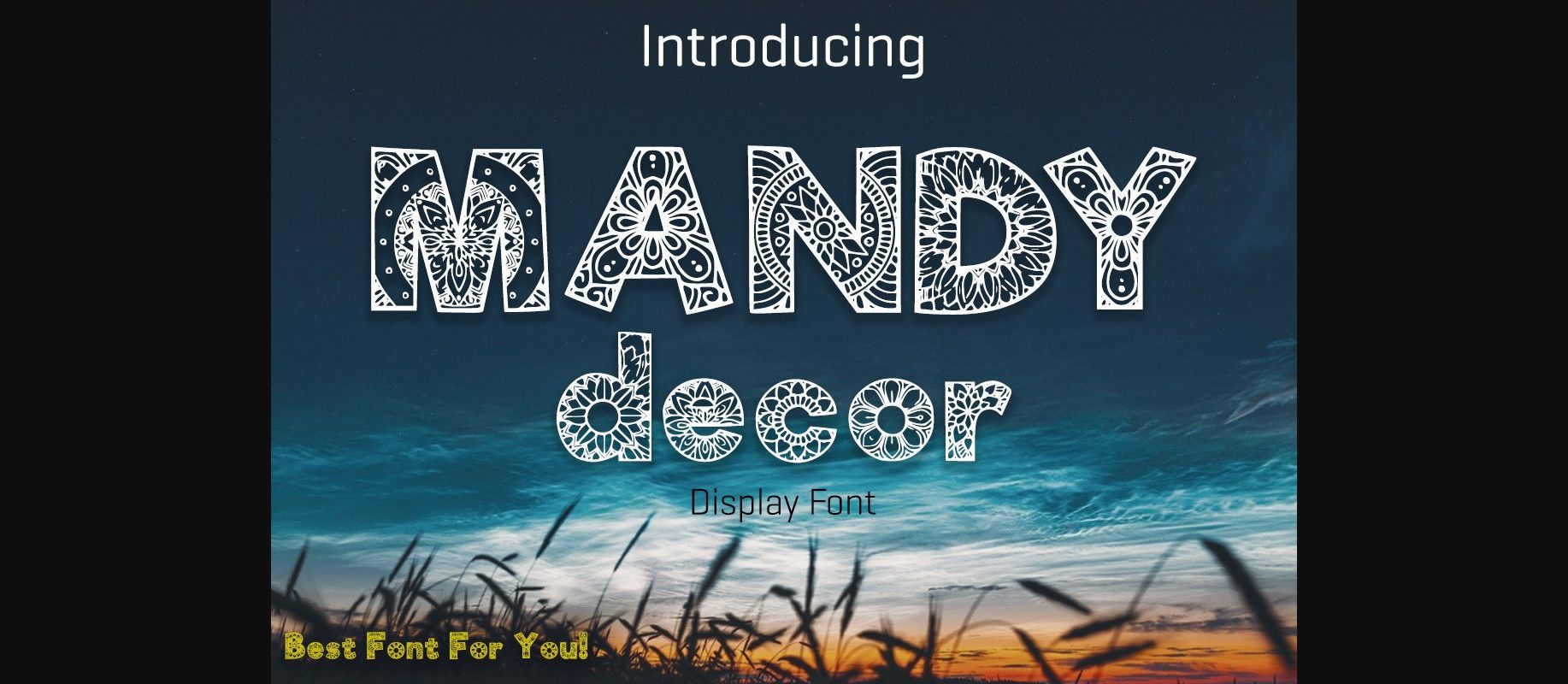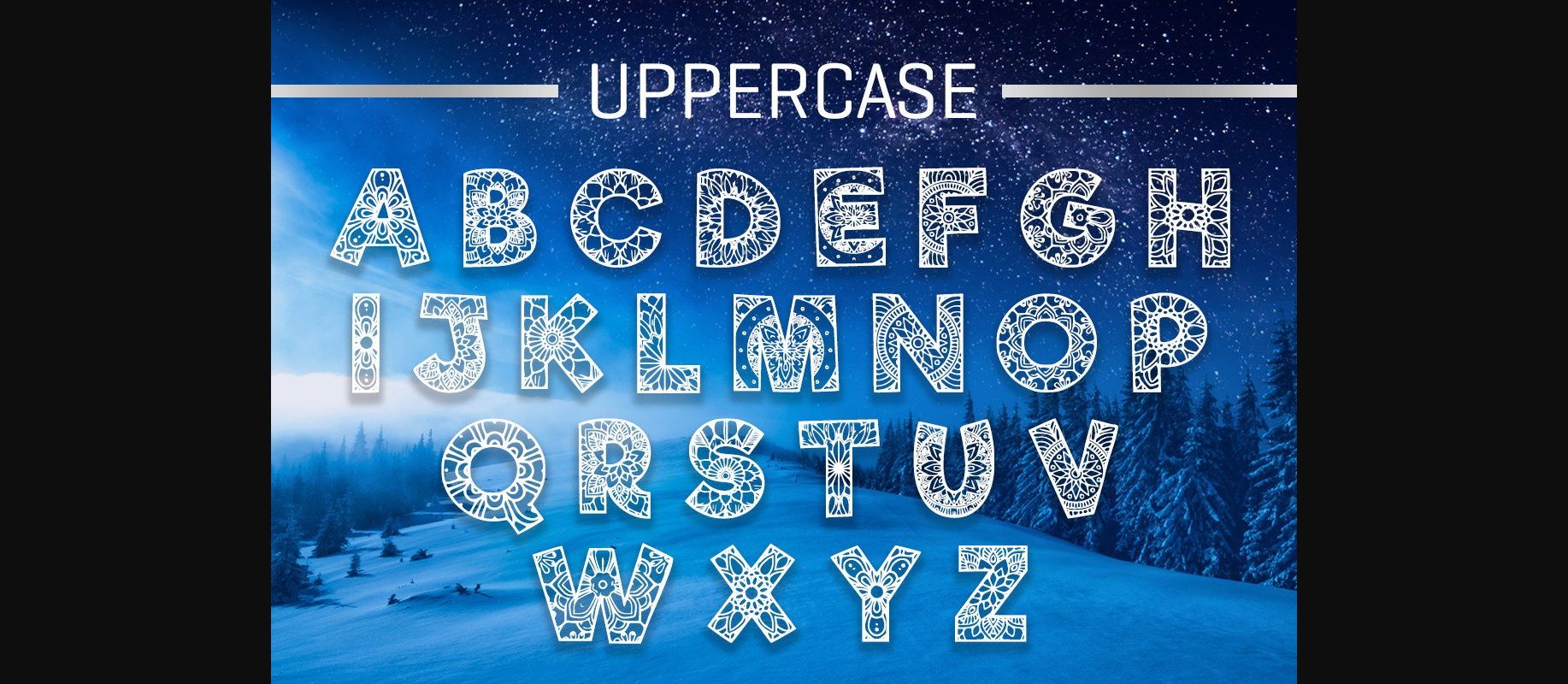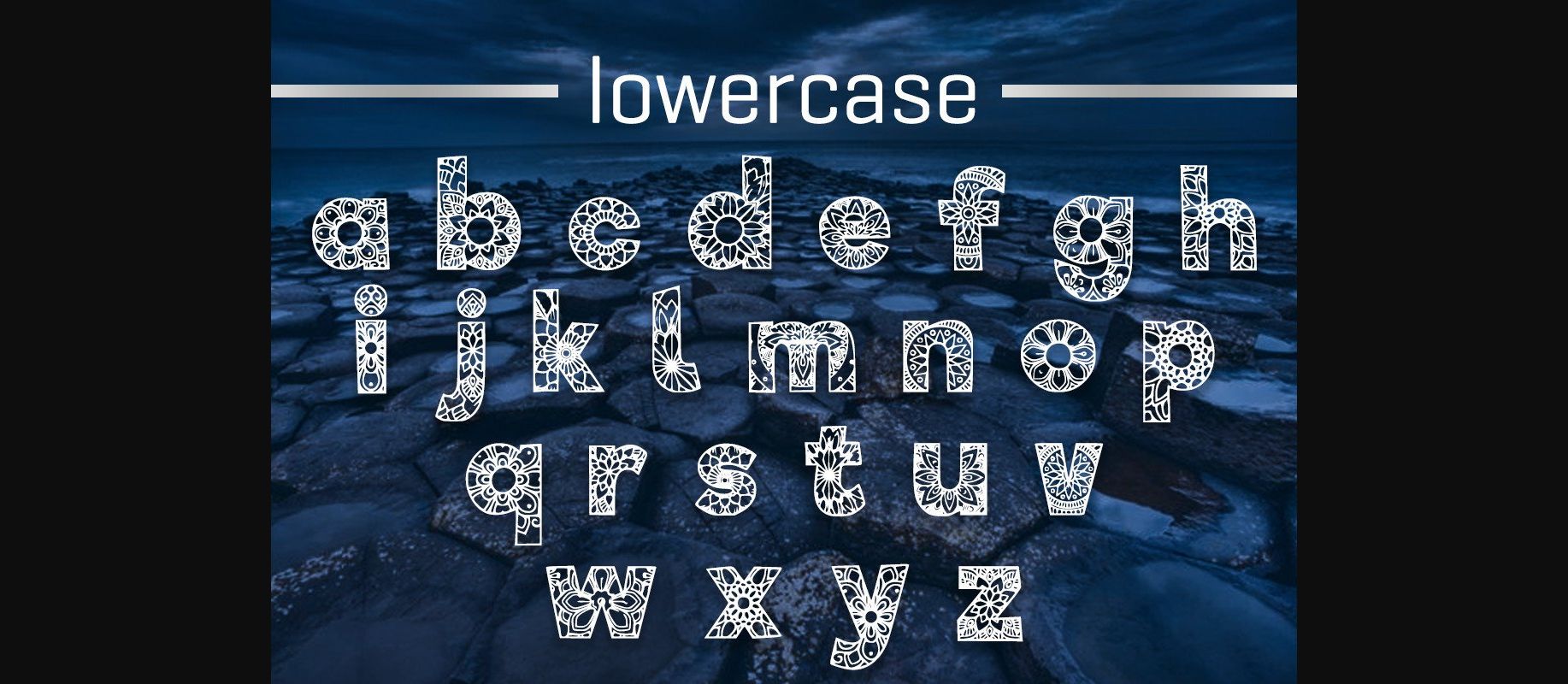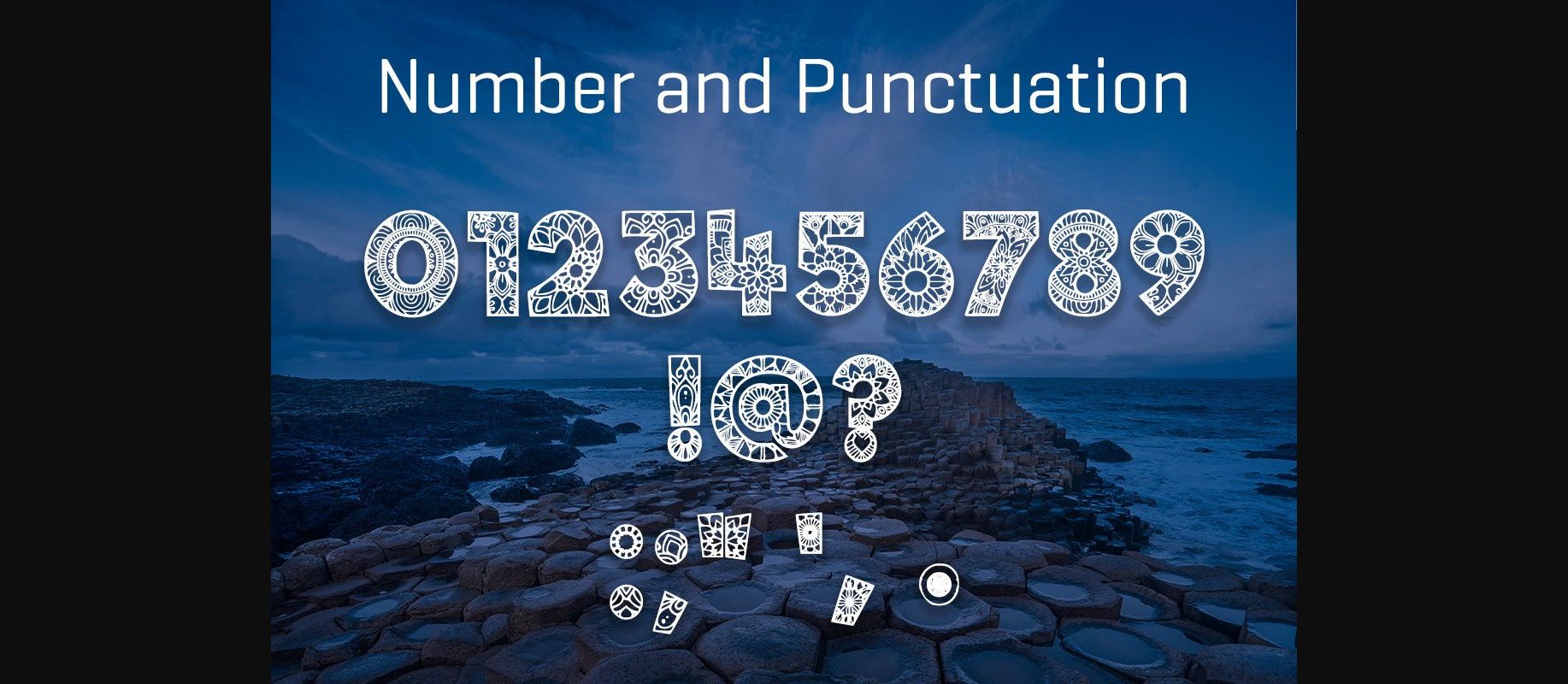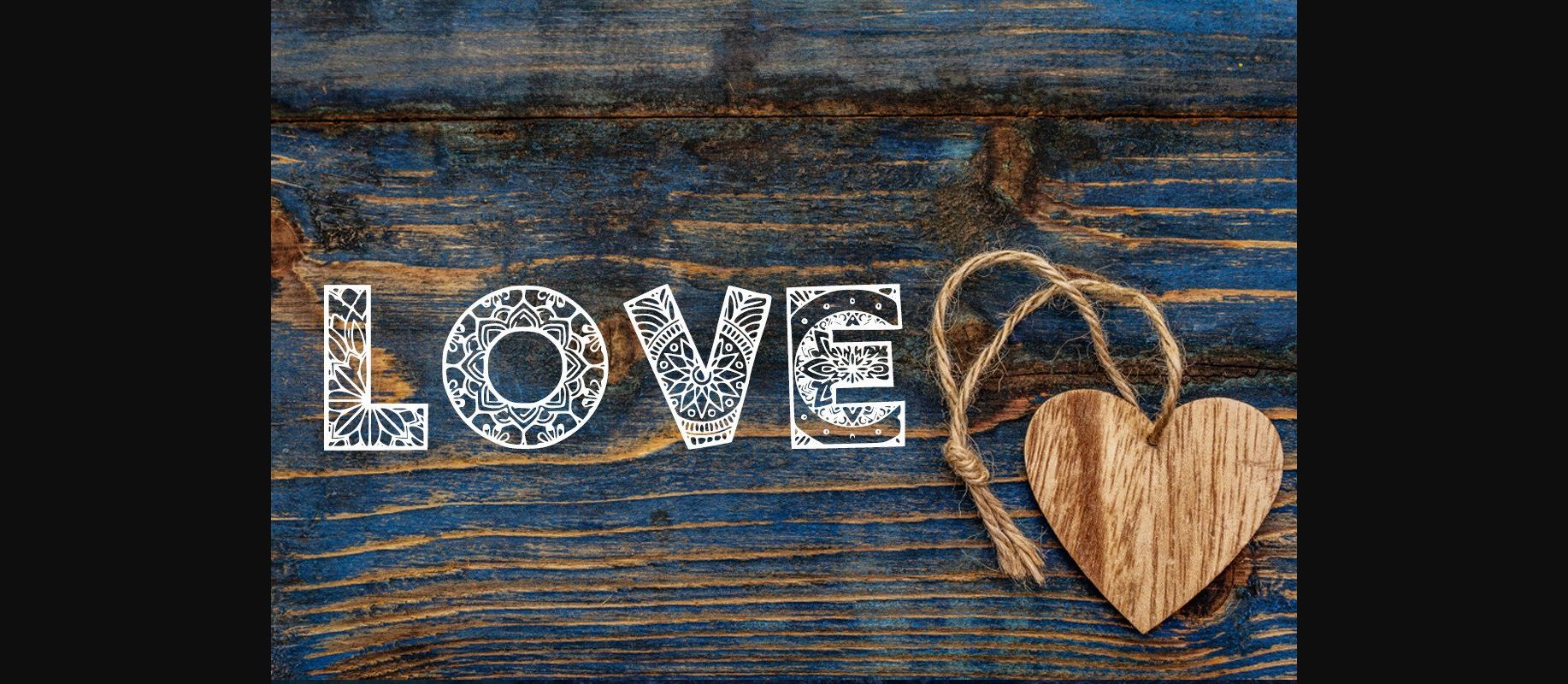
About Mandy Decor Font
Mandy Decor is a cool, uniquely shaped, and interesting decorative font. No matter the topic, this font will be an incredible asset to your fonts’ library, as it has the potential to elevate any creation. With a modern yet whimsical style, this font has the potential to bring each of your creative ideas to the highest level.